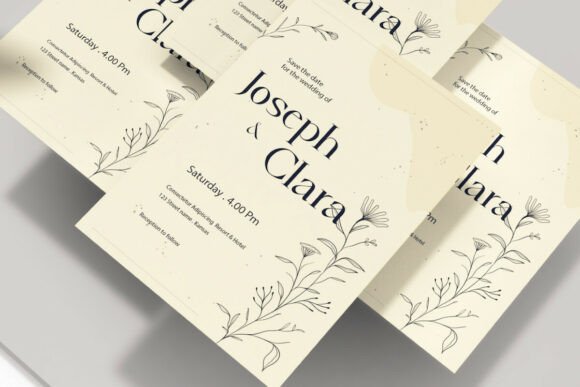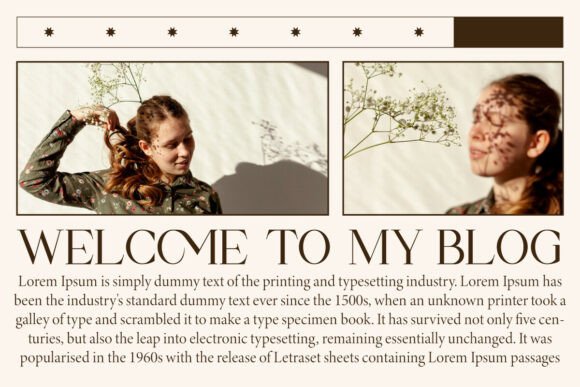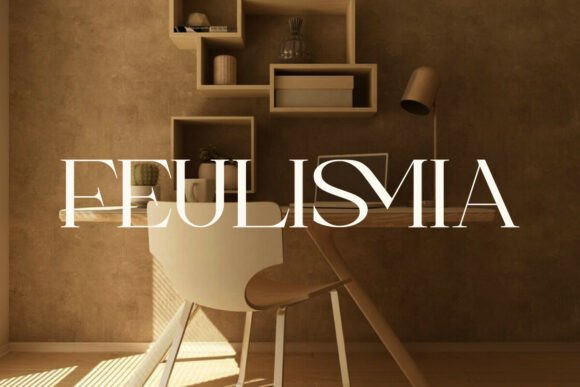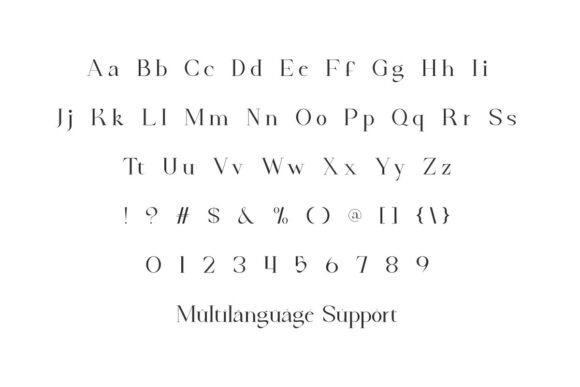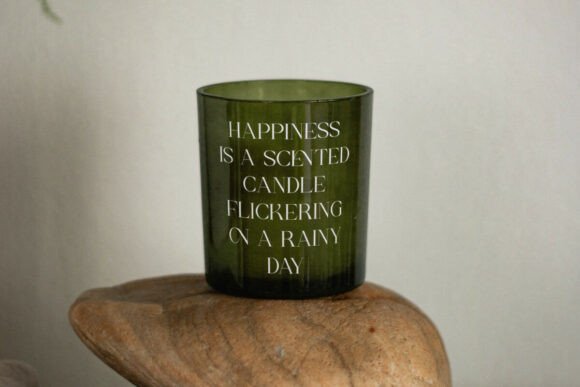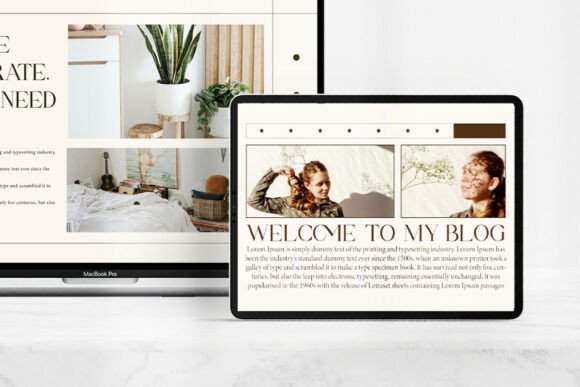
Introducing Feulismia Font: Elevate Your Designs with Elegance and Sophistication
In the world of typography, few fonts manage to convey the essence of luxury, high fashion, and timeless beauty as effectively as Feulismia. This elegant high-contrast serif font is designed to breathe sophistication into every character, making it the ultimate tool for designers looking to infuse their work with a sense of refinement and class. With its classic Roman proportions blended with contemporary editorial flair, Feulismia is poised to become a staple in the designer’s toolkit.
The Characteristics of Feulismia Font
Feulismia boasts razor-sharp serifs and graceful, flowing ligatures that set it apart from more mundane typefaces. Its high-contrast design ensures that each character is not only legible but also aesthetically pleasing, making it perfect for projects where visual impact is paramount. Whether you’re working on a high-end magazine layout, premium product packaging, or boutique branding, Feulismia offers the perfect balance of legibility and artistic style.
Versatility and Pairing Options
One of the key strengths of the Feulismia font is its versatility. It pairs beautifully with minimalist sans serifs to create a balanced, professional look that’s ideal for a wide range of design applications. This ability to complement a variety of typefaces makes Feulismia an incredibly useful font for designers who need to ensure their work stands out without overpowering the content.
Applications of Feulismia Font
The applications for Feulismia are vast and varied. For instance, incorporating this elegant typeface into wedding invitations instantly elevates the aesthetic to a level of haute couture excellence. Similarly, Feulismia can add a touch of sophistication to boutique branding, setting a brand apart in a crowded marketplace. Its high-end feel also makes it suitable for luxury product packaging, high-fashion editorials, and any project that demands a refined, upscale look.
Accessibility and Ease of Use
Feulismia also stands out for its accessibility. Thanks to PUA (Private Use Area) encoding, the entire character set is accessible without needing specialized design programs. This means that designers can easily incorporate Feulismia into their projects, regardless of the software they’re using. This level of accessibility, combined with its stunning design, makes Feulismia a highly attractive option for designers and crafters looking to elevate their work.
Why Choose Feulismia Font?
Choosing Feulismia font for your design projects comes with numerous benefits. Not only does it offer an unparalleled level of elegance and sophistication, but it also provides a practical solution for those looking to enhance the visual appeal of their work. Its versatility, paired with its ease of use, makes Feulismia an excellent investment for designers who want to ensure their projects stand out.
In conclusion, Feulismia font is a game-changer for designers and crafters looking to infuse their work with luxury, high fashion, and timeless beauty. Its elegant high-contrast serif design, combined with its versatility and accessibility, makes it an indispensable tool in any designer’s arsenal. Whether you’re working on a high-end magazine, premium packaging, or boutique branding, Feulismia offers the perfect blend of style, sophistication, and practicality. By incorporating Feulismia into your design projects, you’re not just choosing a font; you’re elevating your work to new heights of elegance and refinement.
Experience the transformative power of Feulismia font in your designs. Discover how this exquisite typeface can bring a touch of haute couture excellence to your work, setting you apart in the world of design.